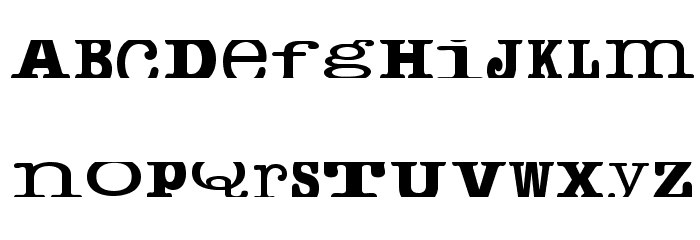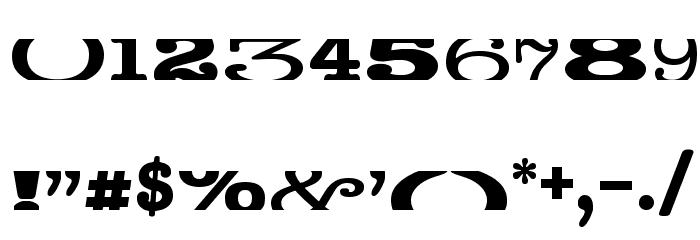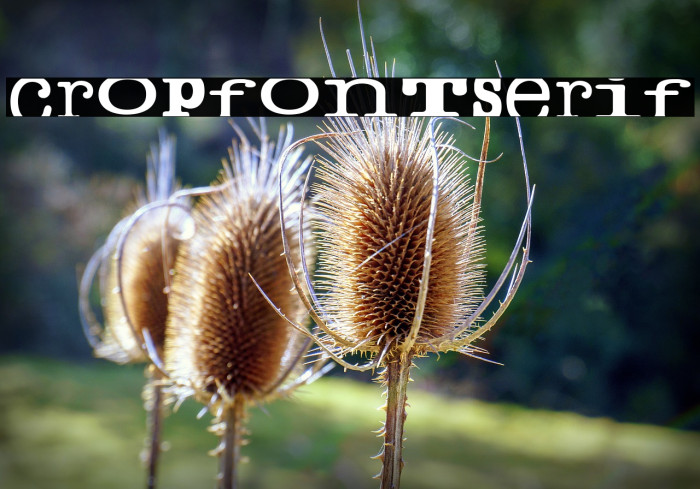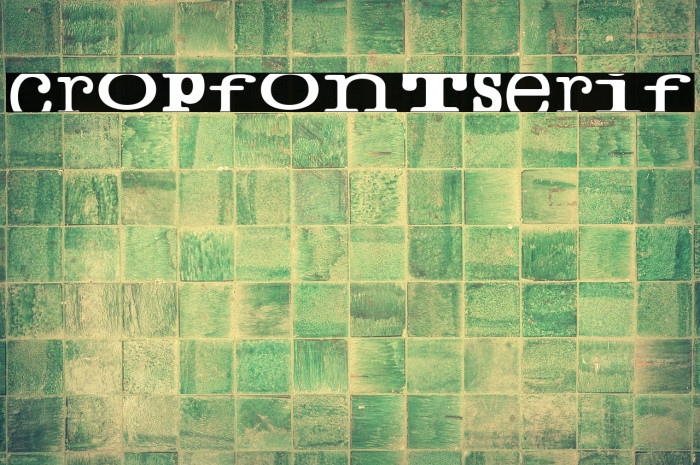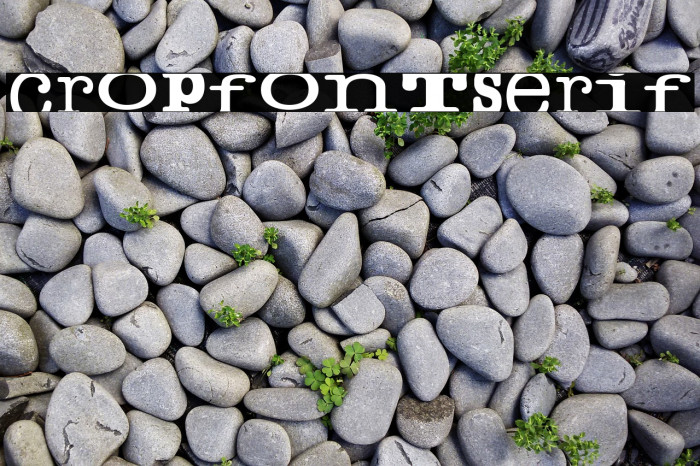
cropfontserif Font
This font features a bold and distinctive style with a strong presence. The characters are designed with thick, heavy strokes and unique serifs that give it a vintage and decorative appearance. The uppercase letters are particularly striking, with exaggerated curves and angles that create a sense of drama and flair. The lowercase letters maintain the same boldness, ensuring consistency across the typeface. Numbers and special characters are equally bold, making them stand out prominently. This font's unique design elements make it ideal for projects that require a strong visual impact.
A bold, decorative serif font with a vintage flair.
- Proposed Projects: Ideal for posters, logos, branding, and headlines that require a strong, eye-catching typeface.
- Category: Serif
- Overall Style: Vintage, Decorative